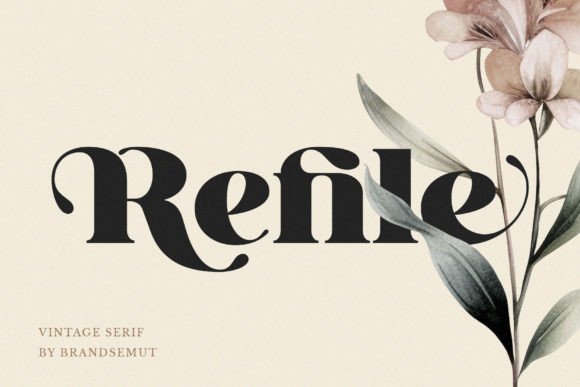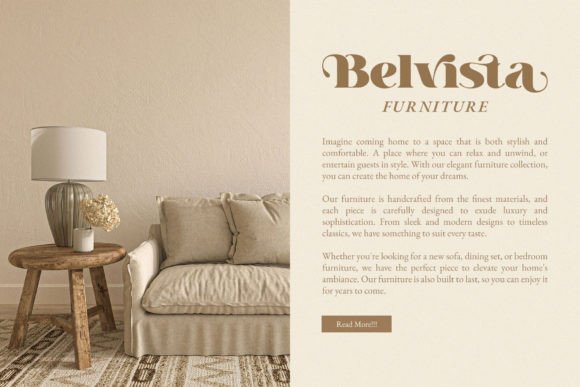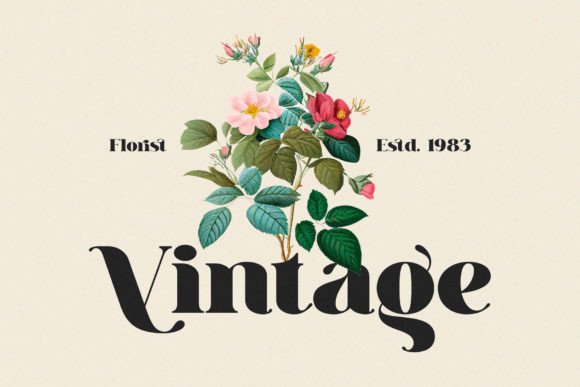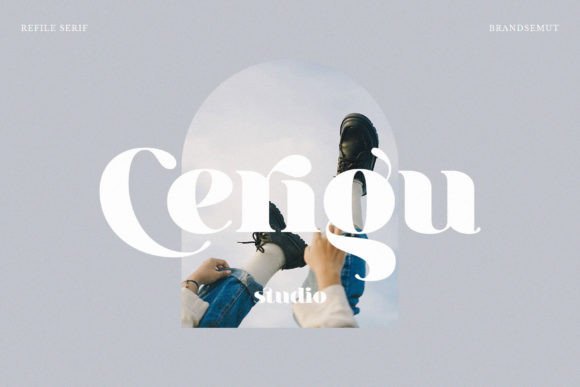
Refile Font: Elegant Vintage Serif for Logos & Modern Branding
About the Refile Font
Unleash your creativity with Refile Font, a versatile font perfect for a wide range of applications. Refile is a vintage and modern display serif, best used as a display for headings, logos, branding, magazines, product packaging, and invitations. Refile equipped with Ligature and many Alternates and come with clean lines and smooth curves giving any project an extra touch of class.
Refile’s elegant yet vintage feel makes it ideal for branding projects requiring a touch of retro sophistication, particularly logos, headlines, and short-form text on packaging or posters. It would be less suitable for body text or lengthy paragraphs due to its display nature; its strong character might also overwhelm user interfaces.
Pairing Refile effectively depends on the desired effect. For a classic feel, consider pairing it with a clean sans-serif like Futura or a more traditional serif such as Garamond. To emphasize the vintage aspect, a script font like Playfair Display could work well for secondary text elements. Alternatively, a geometric sans-serif like Montserrat could provide a modern contrast.
Refile projects an air of refined boldness, balancing classic elegance with a contemporary edge. This makes it perfect for brands aiming for a sophisticated, yet approachable image – think high-end fashion, boutique hotels, or craft breweries seeking a premium aesthetic.
Refile Font Usage Examples
Refile Font Example